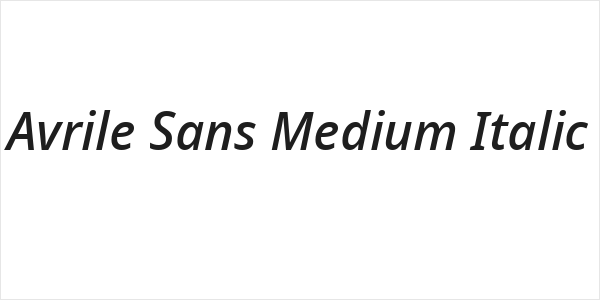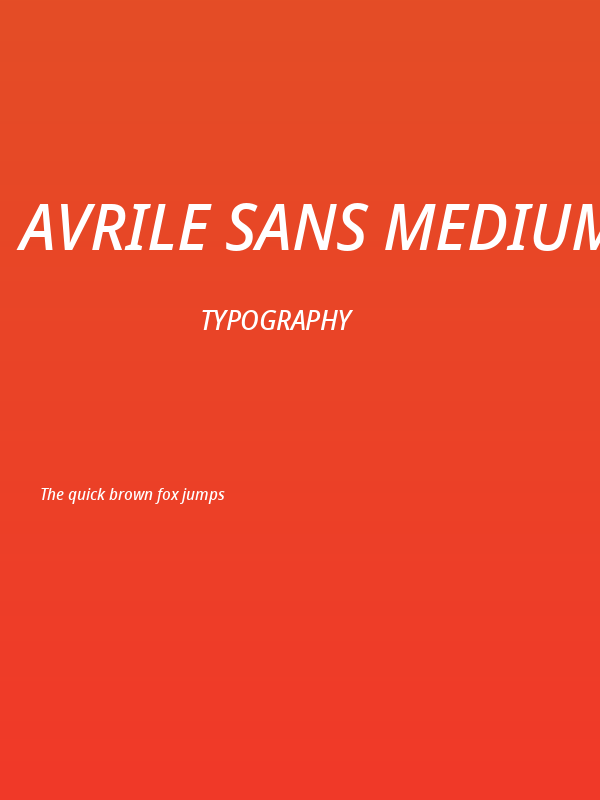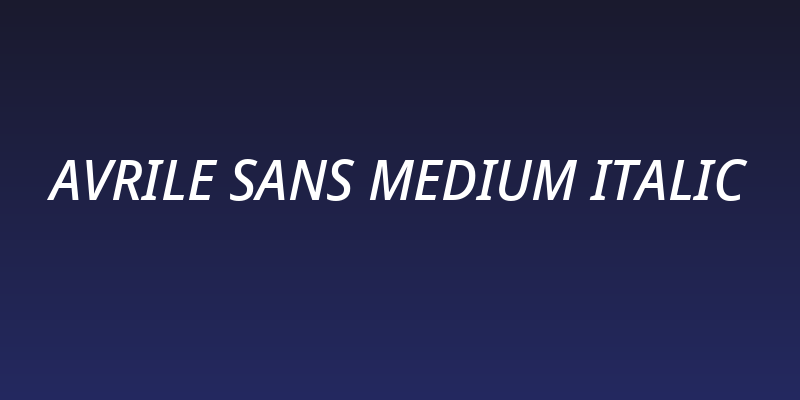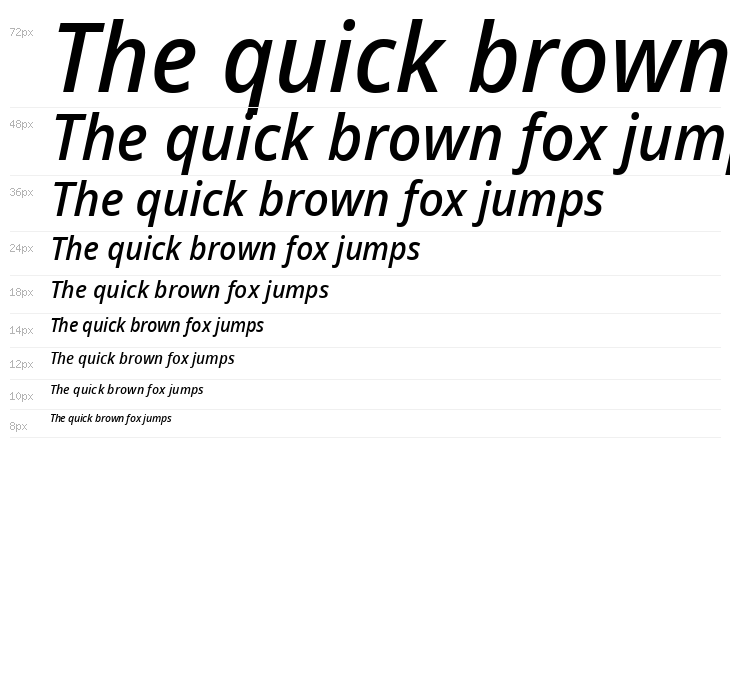
Avrile Sans Medium Italic Font
Avrile Sans Medium Italic Description
This typeface presents a sleek, modern appearance with its clean lines and slightly slanted characters, giving it an italicized look. The sans-serif design ensures a minimalist and contemporary feel, making it suitable for a wide range of applications. The medium weight provides a balanced presence, neither too light nor too bold, which enhances readability while maintaining a stylish aesthetic. The characters are well-proportioned with consistent stroke widths, contributing to a harmonious and professional appearance. The spacing between characters is normal, allowing for clear legibility without appearing cramped or overly spaced. This font's versatility makes it an excellent choice for both digital and print media, offering a refined yet approachable look.
| Proposed Projects | Ideal for branding, advertising, web design, and editorial layouts where a modern and professional appearance is desired. |